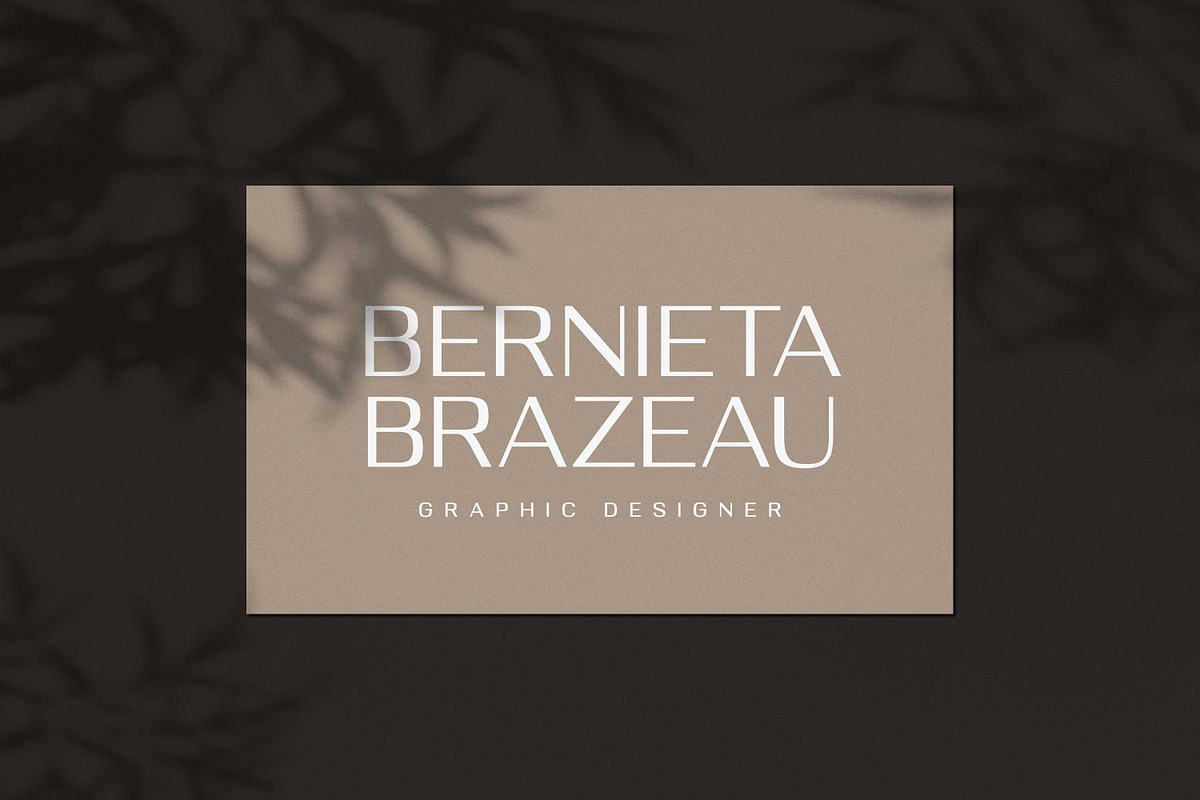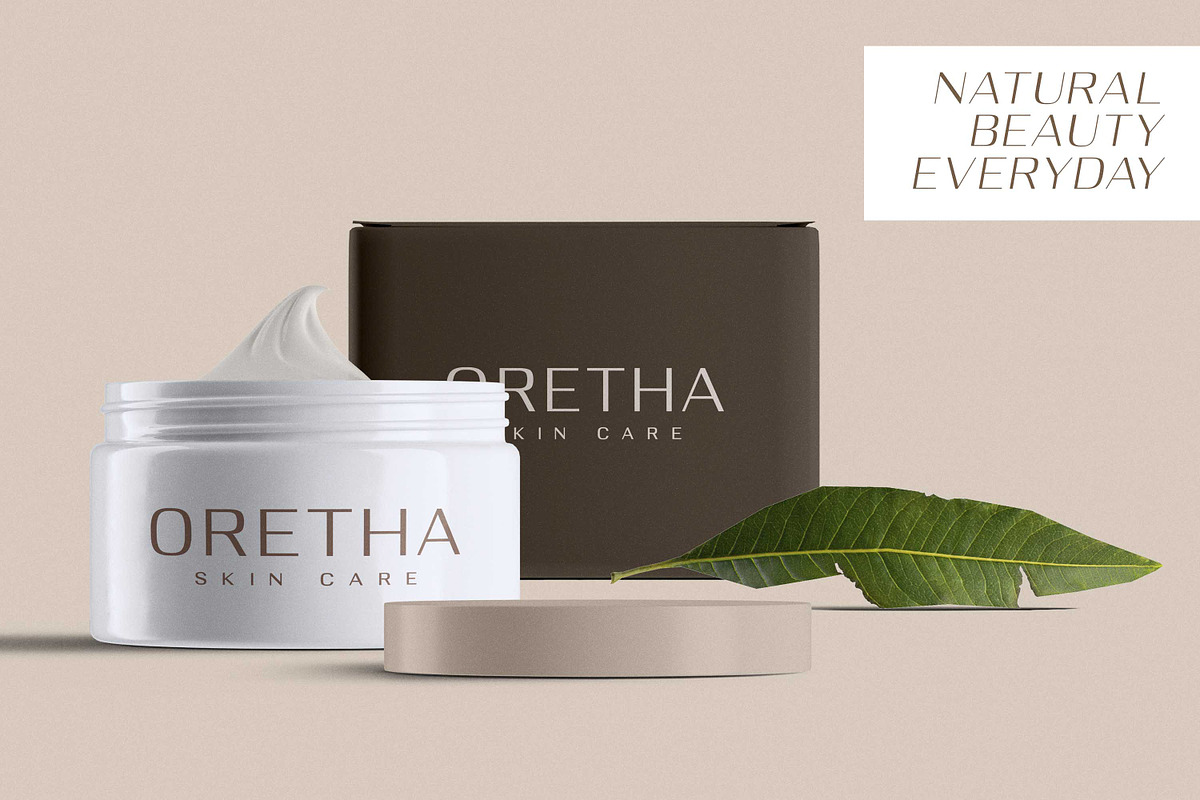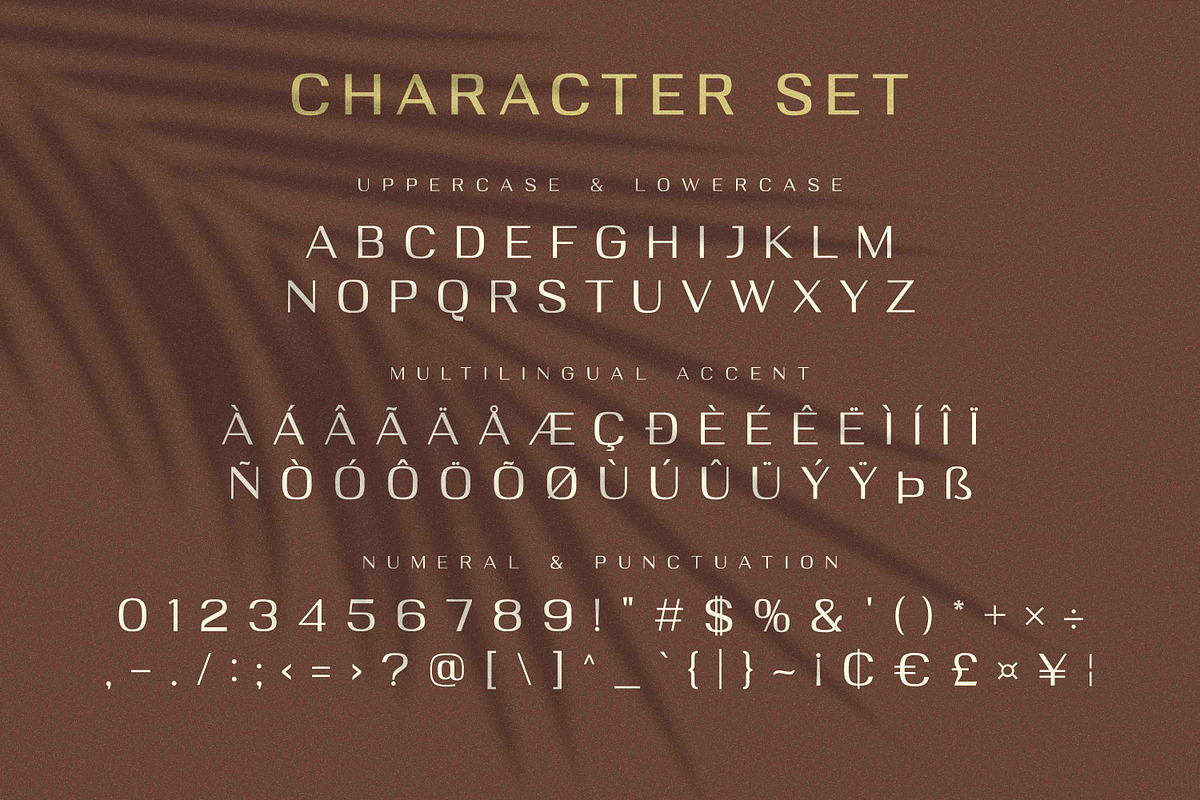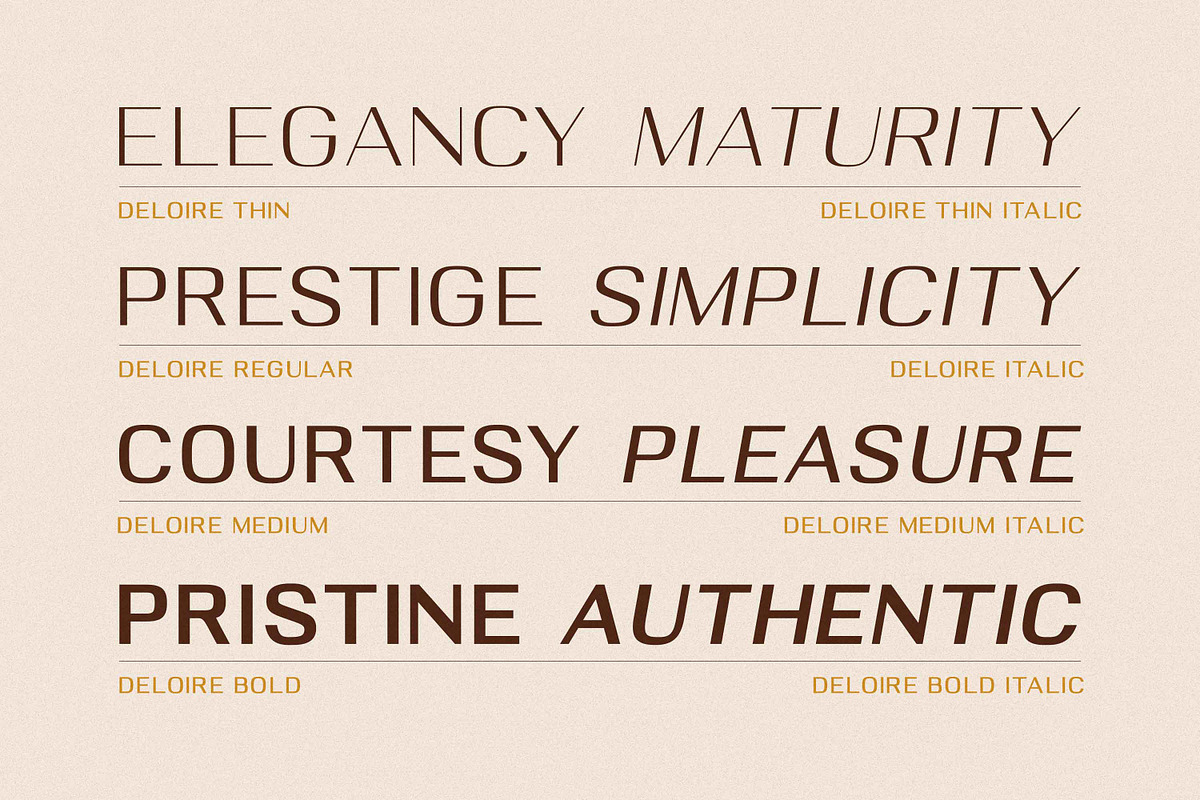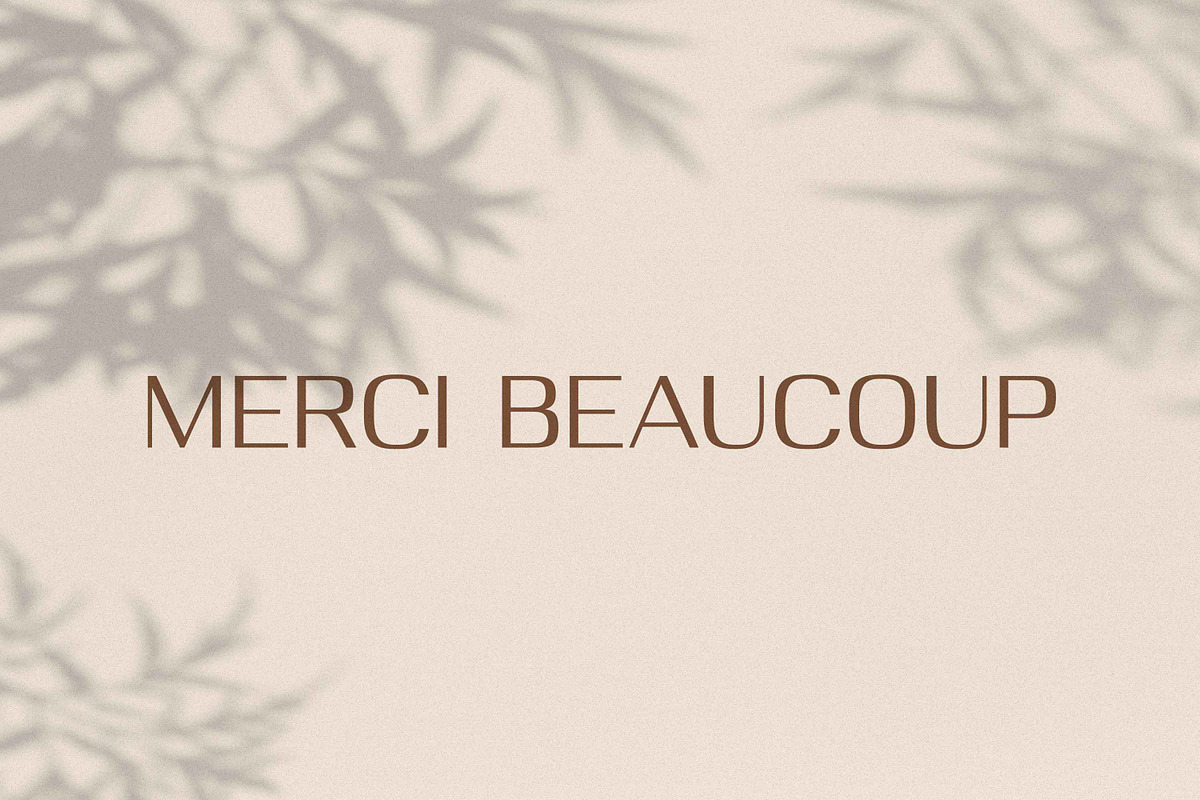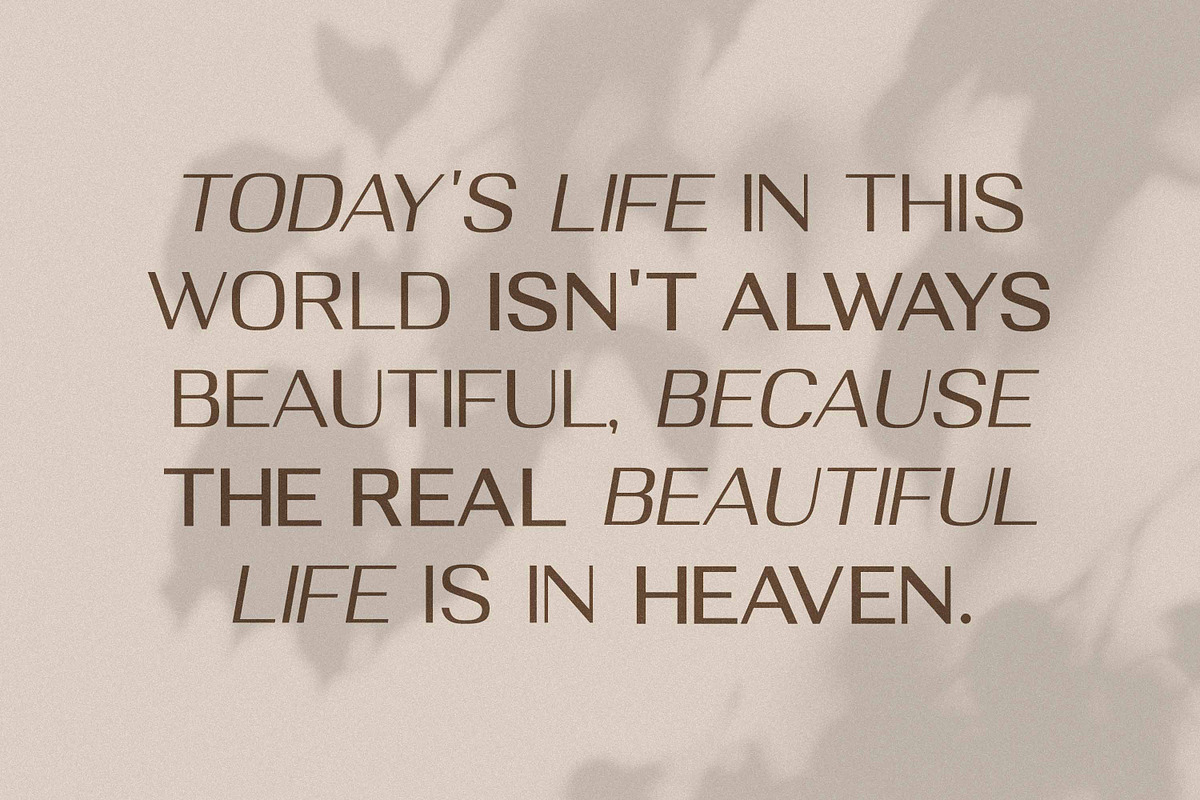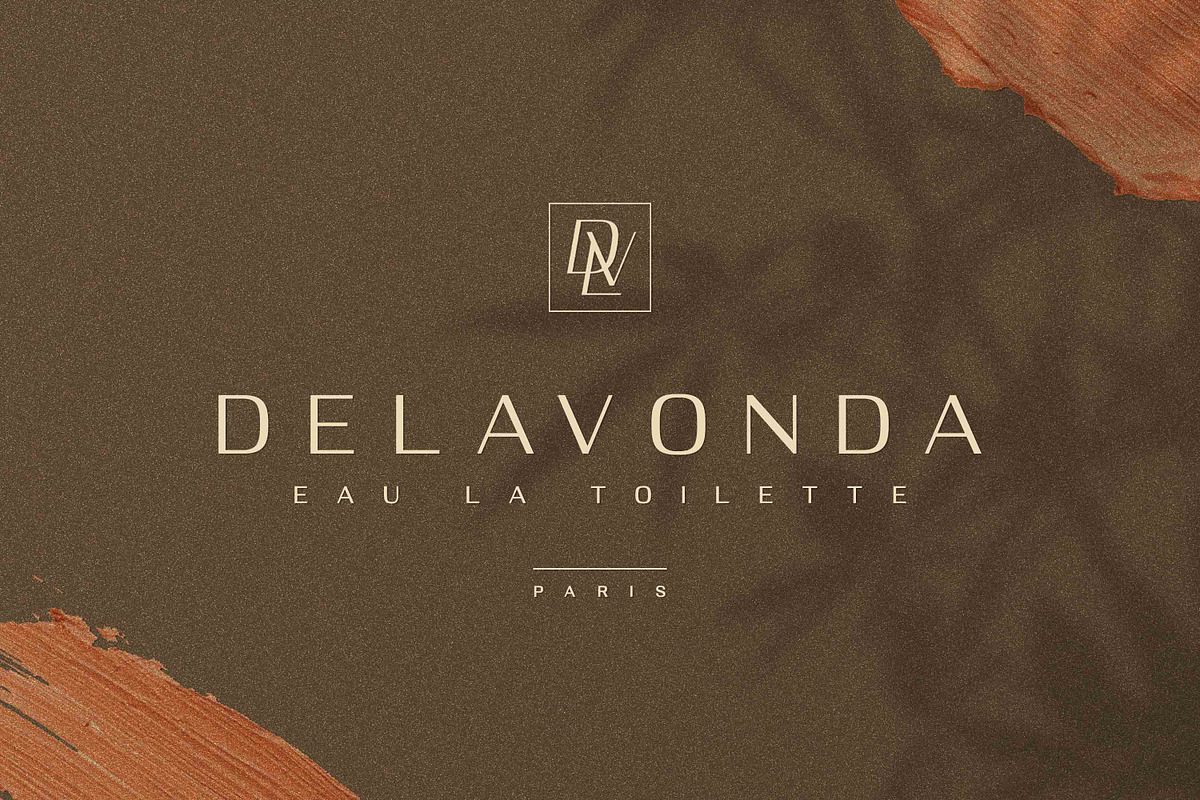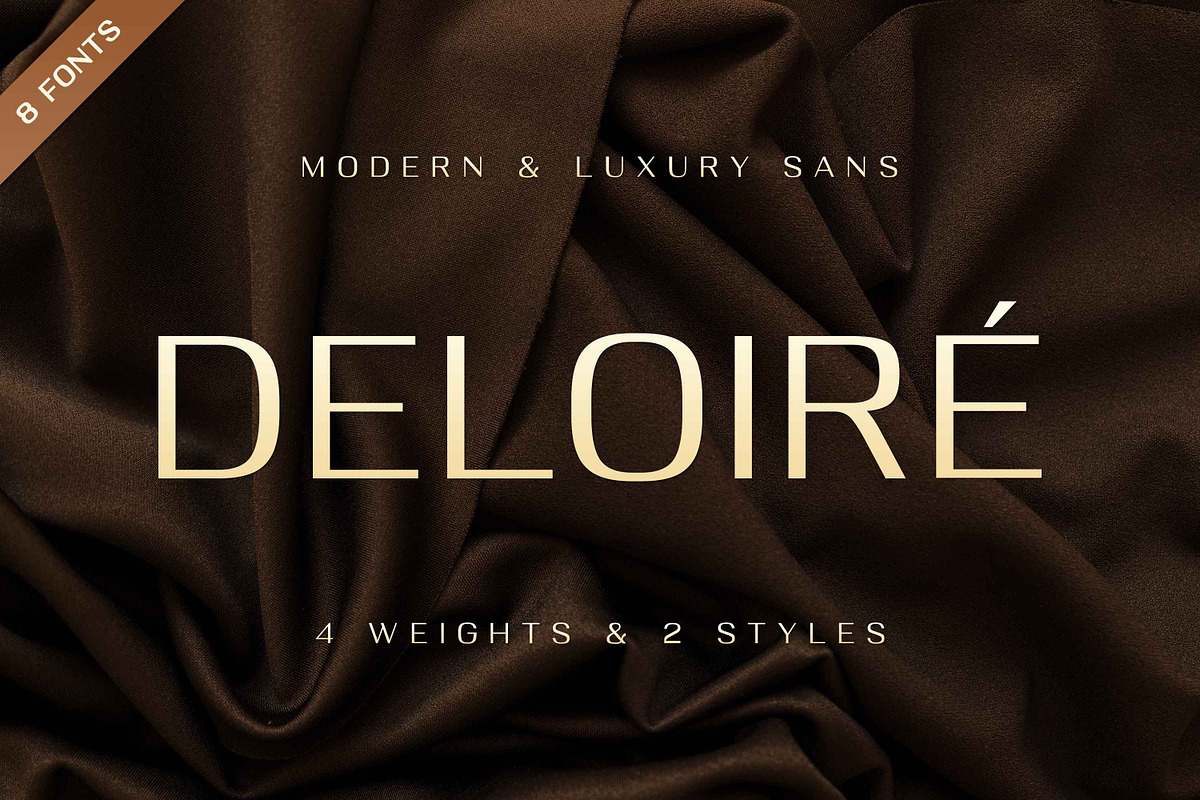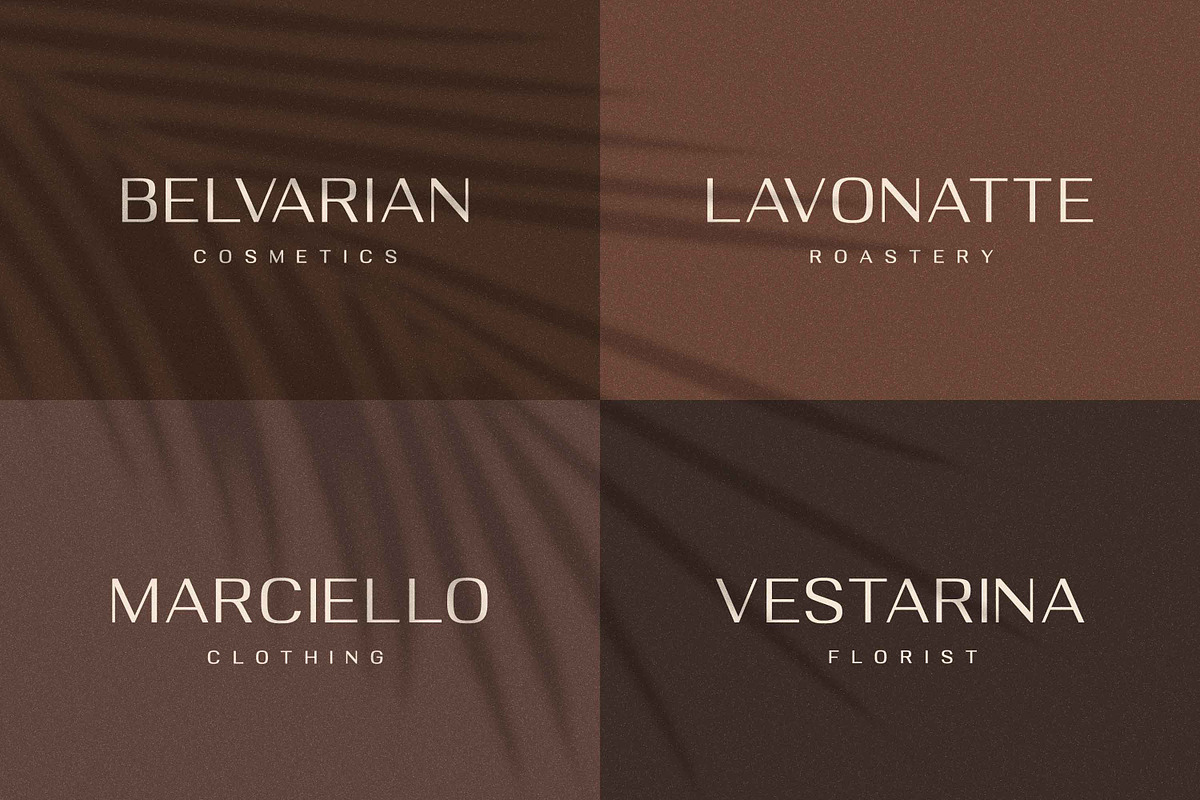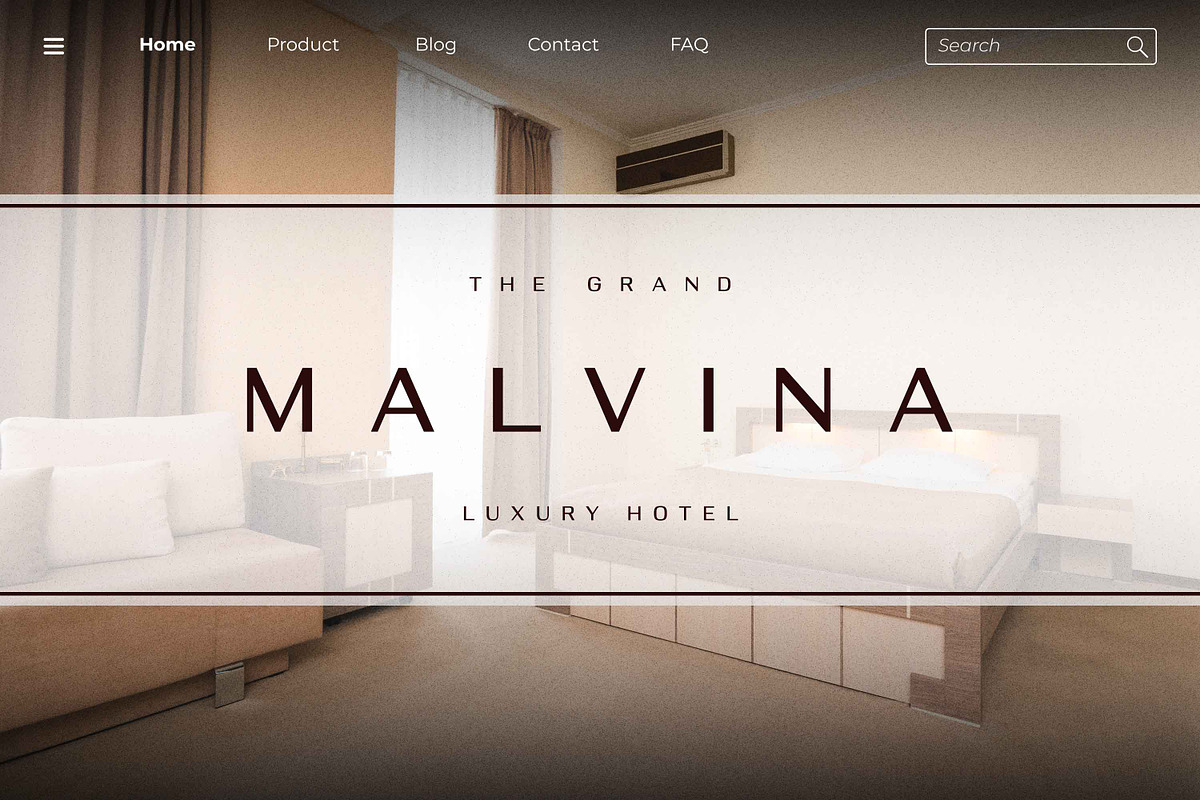
DELOIRE - Modern & Luxury Sans
Deloire Modern & Luxury Sans Family Our latest product inspired by the famous logo is simple but classy, made with precision and measured. very good for combining your design work with a clear line and a circle with several different weights that are very comfortable in the design area you are easy to read and as a title on a blog or magazine page
Deloire has symbols and punctuation and unique alternative letters perfect for logos & branding, photography, invitation, watermark, advertisements,product designs, stationery, wedding designs,label ,product packaging